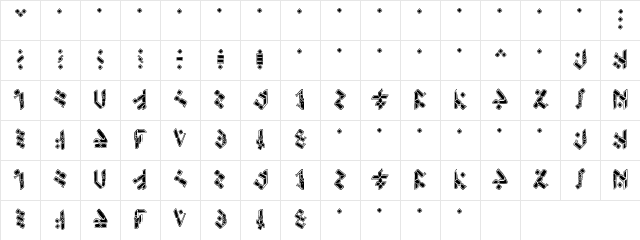
Temphis Knotwork Regular Free Font
Temphis Knotwork Regular
Design Context for Temphis Knotwork
Temphis Knotwork is a composed and adaptable typeface that performs quietly and consistently across a wide range of design contexts.